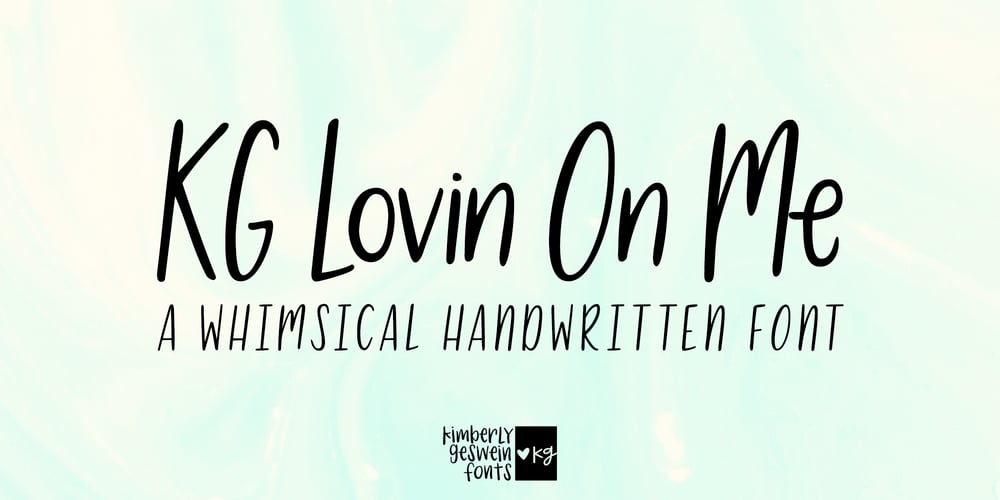
KG Lovin On Me Font Family was designed by Kimberly Geswein and published by Kimberly Geswein. KG Lovin On Me contains 1 styles and family package options. I created this font while working in local Louisville Kentucky area coffee shops and listening to lots and lots of local legend Jack Harlow. I wanted to create something happy and feminine and play with capital letters that drop below the baseline. I’ve recently entered a new life stage as an empty nester and I’ve been loving the freedom and joy that comes with having ample time to pursue my interests. I think my latest work reflects that happiness and I want to share that with others.I think the finished result is whimsical but legible and that’s always my goal. If things can’t be easily read and understood, they lose their value, so legibility is always super important to me.